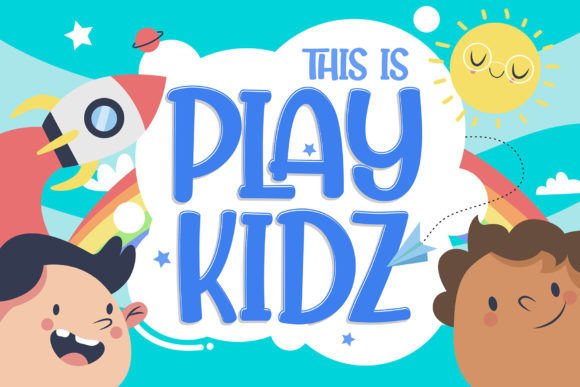
**Unlock Your Imagination with Playkidz Font: Unleash a World of Wonder for Kids!**
In a world bursting with creativity, Playkidz Font emerges as the ultimate tool for crafting enchanting experiences for little minds. This playful and authentic display font, lovingly crafted by Figuree Studio, will spark boundless imagination and bring a touch of magic to every project.
Picture this: your child's name adorning their favorite toy chest, painted with the vibrant strokes of Playkidz. The letters dance across the surface, each one a vibrant hue, inviting them to embark on extraordinary adventures.
Envision the walls of their room transformed into a whimsical canvas, adorned with whimsical phrases written in Playkidz. Each word becomes a window to their dreams, inspiring them to soar high and dream big.
Playkidz Font is not just a typeface; it's a gateway to a world of storytelling and imagination. With its flowing lines and playful curves, it captures the essence of childhood wonder, turning every creation into a cherished memory.
Whether you're a parent, a teacher, or a creative soul, Playkidz Font will ignite your imagination and empower you to create a world where kids can learn, laugh, and grow.
**Key Highlights:**
- Playful and authentic display font
- Perfect for kids-themed crafts and projects
- Encourages creativity and imagination
- Medium brush strokes add a touch of charm
- Created by renowned Figuree Studio